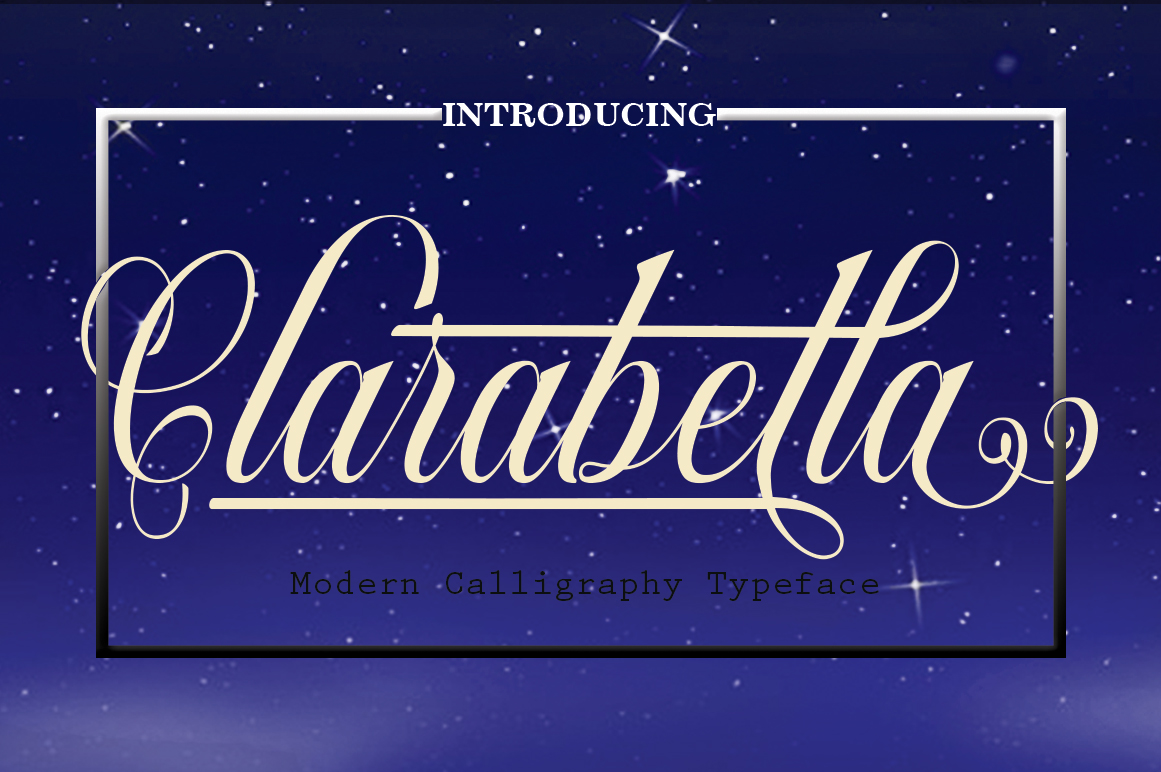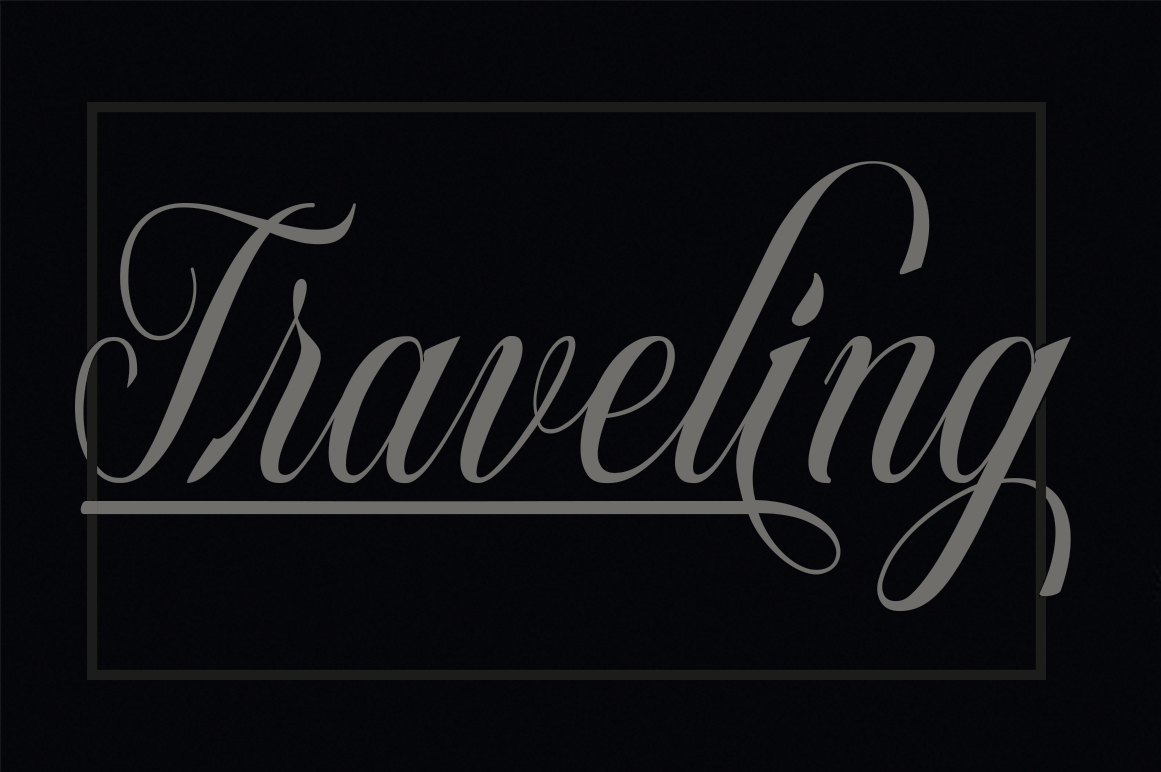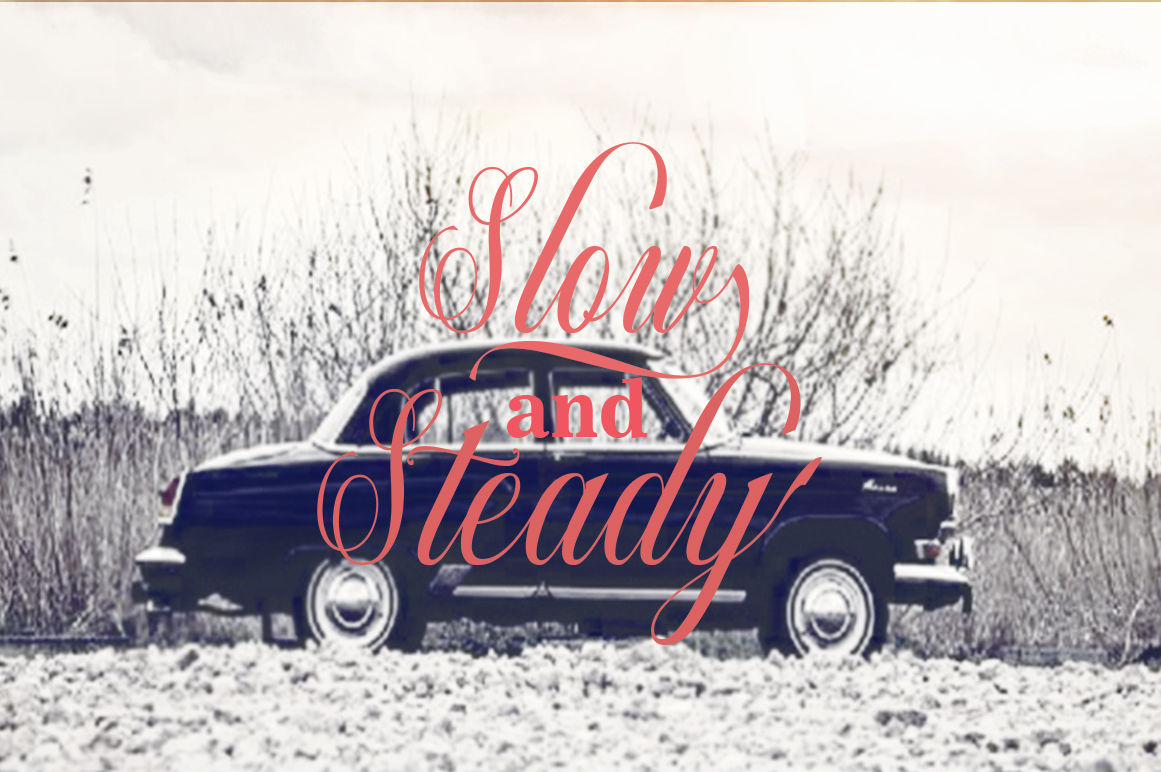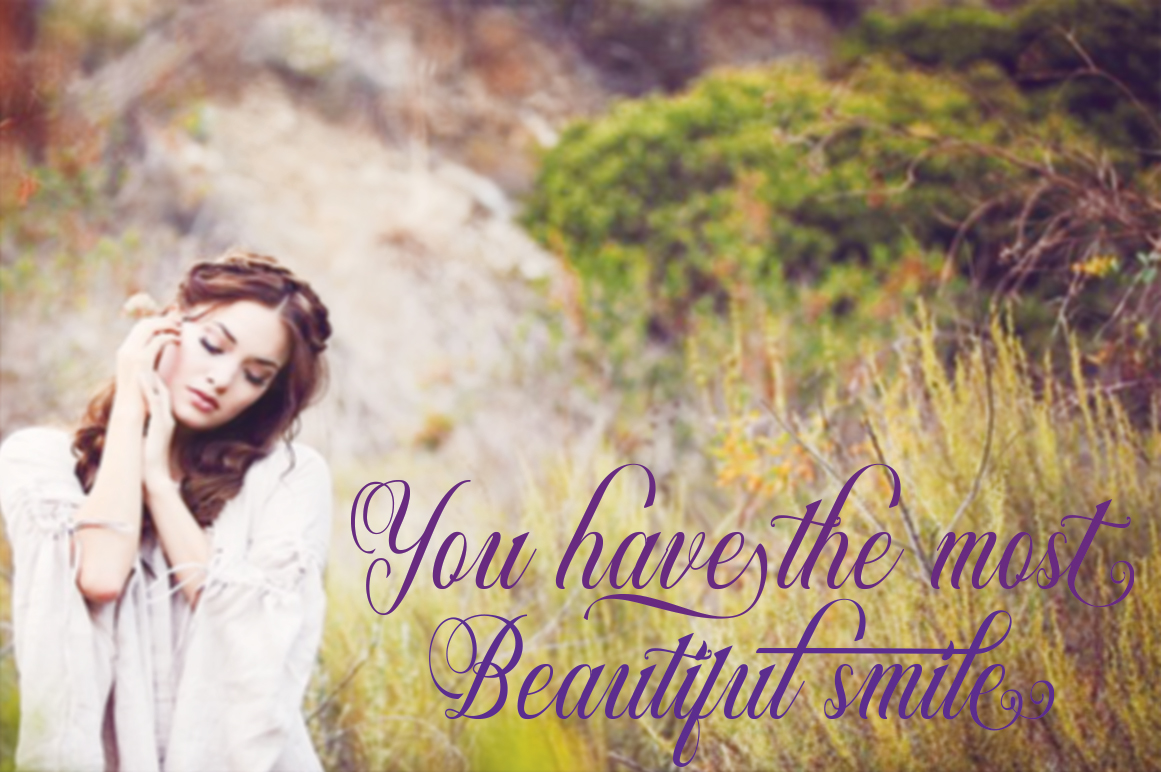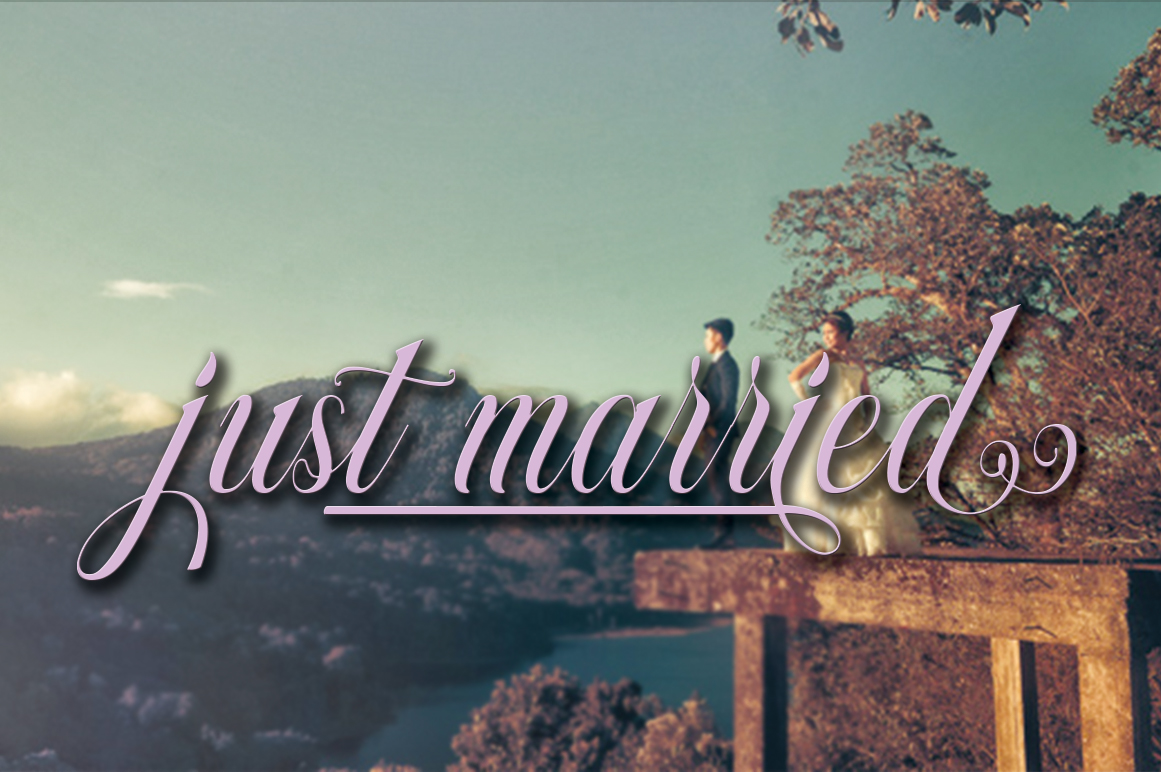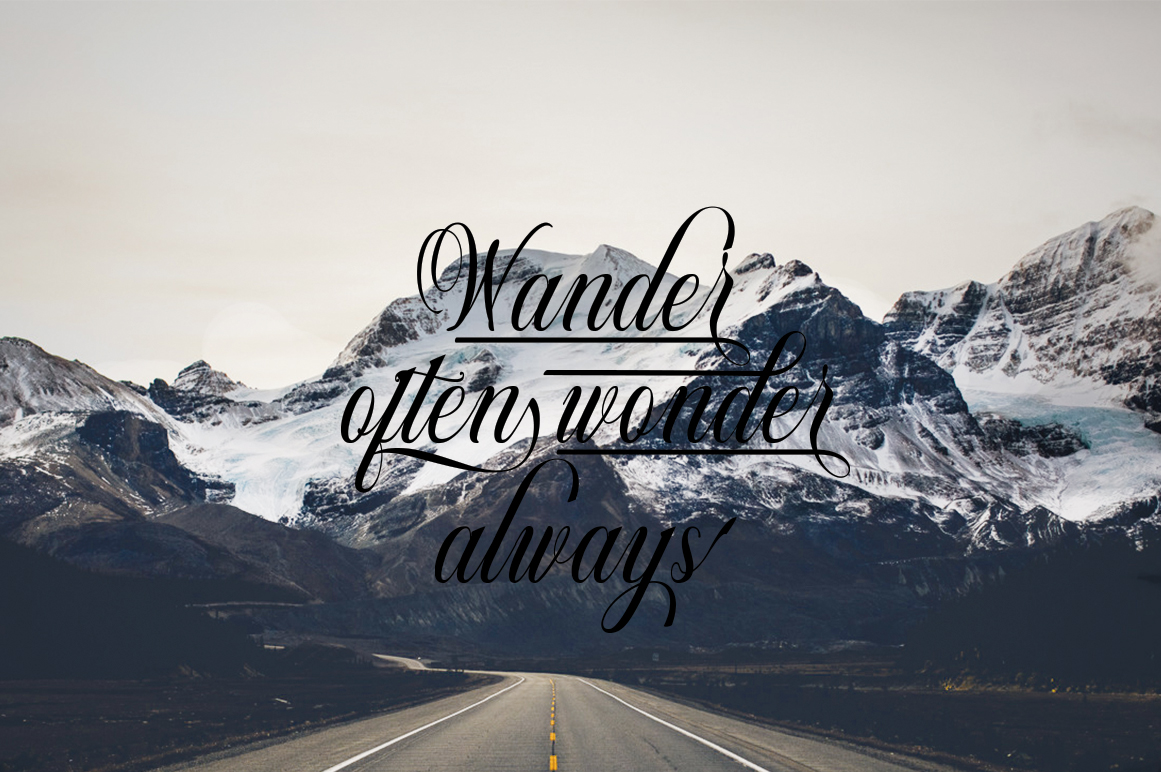
Clarabella Font
Clarabella is a gorgeous modern script font, with each letter having been carefully crafted to look stunning. This font is ideal for a wide range of display ideas and comes jam-packed with over 335 glyps and alternate characters.